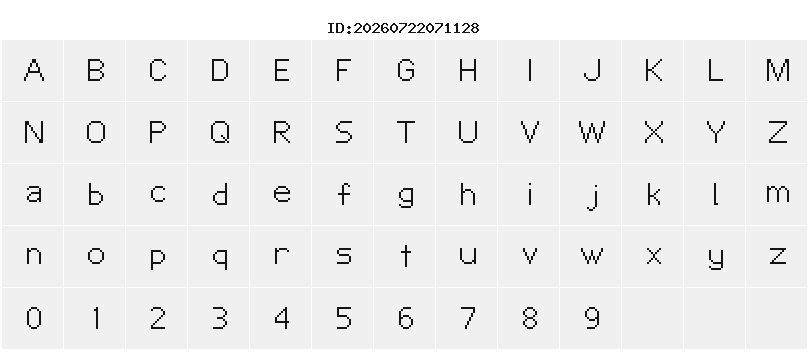
• Font Name: Honey Room
• Designer: JAMES MONTAGNA
About Honey Room.ttf
Honey Room.ttf is a modern, elegant sans-serif font designed for ultimate readability and visual harmony. Perfect for branding, headlines, web design, and print materials.